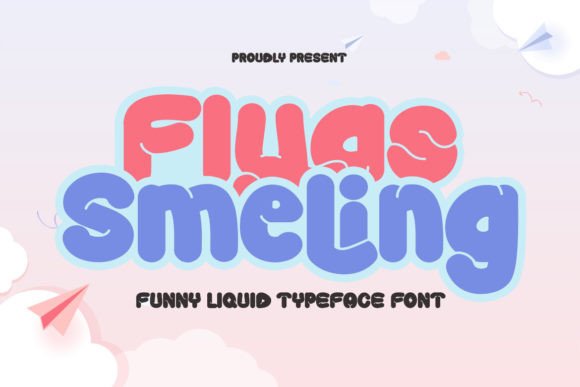
Introducing Flyas Smeling Font: The Playful and Quirky Typeface That’s Making a Splash
In the world of typography, fonts play a crucial role in conveying the tone and personality of a design. Whether you’re working on a branding project, creating a poster, or designing a website, the right font can make all the difference. If you’re looking for a typeface that’s fun, imaginative, and sure to grab attention, look no further than Flyas Smeling Font. This playful and quirky font is making waves with its unique liquid style that’s perfect for designs that want to stand out with a touch of humor and creativity.
What is Flyas Smeling Font?
Flyas Smeling Font, also known as βFlyas Smeling a Funny Liquid Style Fontβ, is a playful and quirky typeface that looks like letters made from splashes and drips of colorful liquid. The font’s unique design is reminiscent of paint splatters, watercolor effects, or even melted ice cream. Its irregular shapes and vibrant colors give it a fun and imaginative feel that’s sure to add a touch of whimsy to any design.
Key Features of Flyas Smeling Font
- Unique Liquid Style: Flyas Smeling Font features a one-of-a-kind liquid style that’s unlike any other font out there. Its splashes and drips of colorful liquid give it a playful and quirky feel that’s sure to grab attention.
- Fun and Imaginative: This font is perfect for designs that want to convey a sense of humor and creativity. Its irregular shapes and vibrant colors make it a great choice for playful and imaginative designs.
- Multicolor Support: Flyas Smeling Font comes with multicolor support, allowing you to use different colors for each letter or word. This feature adds an extra layer of creativity to your designs.
- High-Quality Design: The font is designed with high-quality vectors, ensuring that it looks great in any size or resolution.
Ideas for Using Flyas Smeling Font
Flyas Smeling Font is a versatile typeface that can be used in a variety of design projects. Here are some ideas to get you started:
- Branding and Logo Design: Use Flyas Smeling Font to create a fun and memorable logo for your brand. Its unique liquid style is sure to make your brand stand out.
- Posters and Flyers: Add a touch of whimsy to your posters and flyers with Flyas Smeling Font. Its playful design is perfect for advertising, promotions, or events.
- Website Design: Use Flyas Smeling Font to add a playful touch to your website’s typography. Its multicolor support and liquid style make it a great choice for headings, titles, or even entire paragraphs.
- Social Media Graphics: Create eye-catching social media graphics with Flyas Smeling Font. Its fun and imaginative design is sure to grab attention on any platform.
Tips and Tricks for Using Flyas Smeling Font
Here are some tips and tricks to help you get the most out of Flyas Smeling Font:
- Experiment with Colors: Don’t be afraid to experiment with different colors and color combinations. Flyas Smeling Font’s multicolor support allows you to create unique and eye-catching designs.
- Mix and Match: Mix and match Flyas Smeling Font with other fonts to create interesting and dynamic typography.
- Play with Size and Scale: Experiment with different sizes and scales to add visual interest to your designs.
- Keep it Simple: Don’t overdo it β sometimes less is more. Use Flyas Smeling Font sparingly to add a touch of whimsy to your designs.
In conclusion, Flyas Smeling Font is a playful and quirky typeface that’s perfect for designs that want to stand out with a touch of humor and creativity. Its unique liquid style, multicolor support, and high-quality design make it a versatile font that can be used in a variety of design projects. Whether you’re a designer, artist, or simply someone who loves typography, Flyas Smeling Font is sure to inspire your creativity and add a touch of whimsy to your designs.